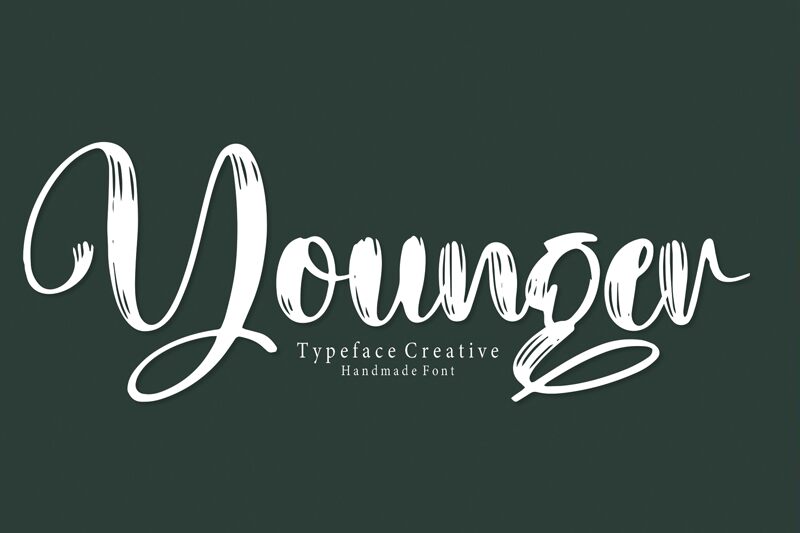
Younger
Younger font by Scratchones is a brush font with sweeping tails and modern aesthetics. The typeface has an expressive flair in each character that appears chic. Its high verticals paired with stylish curves make for an impressive font that will further improve any project you are working on.
Use Younger in social media posts, handmade invitations, greeting cards, logos, fashion items, product labels, packaging designs, posters, or website headers. Its long lines allow it to cover wide spaces and captivatingly complete your print or digital works.